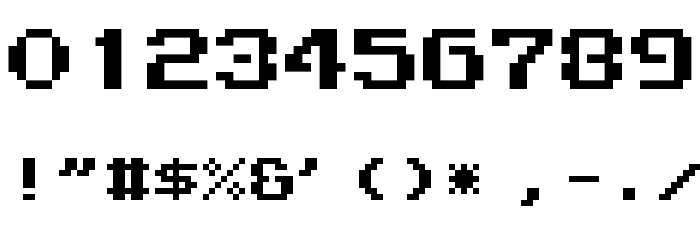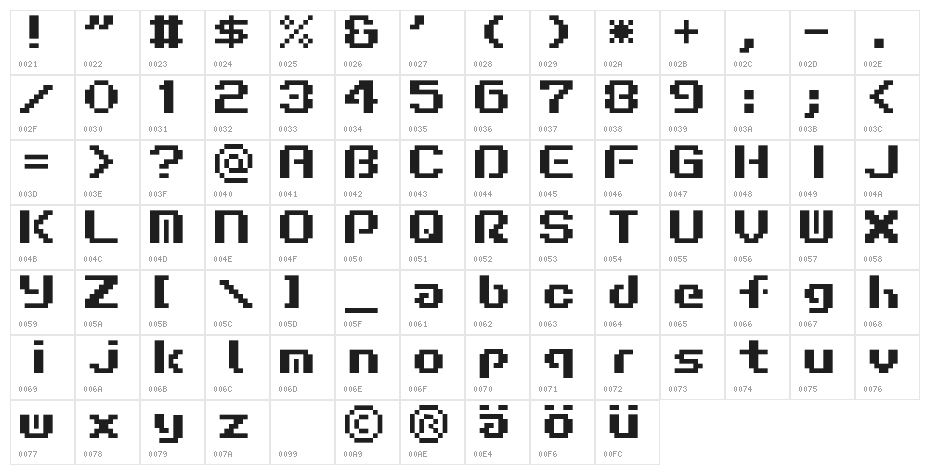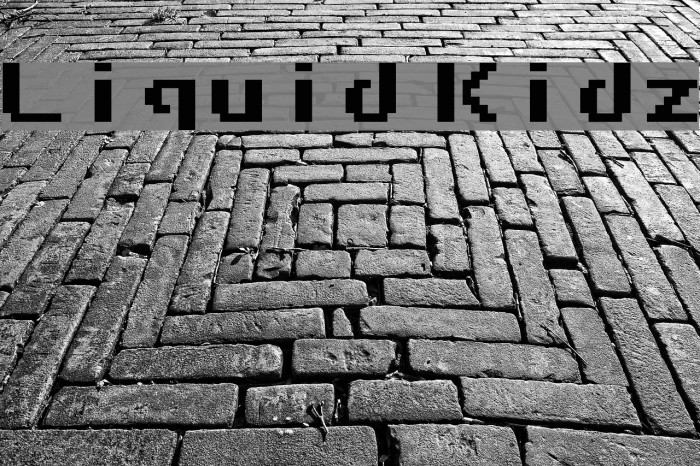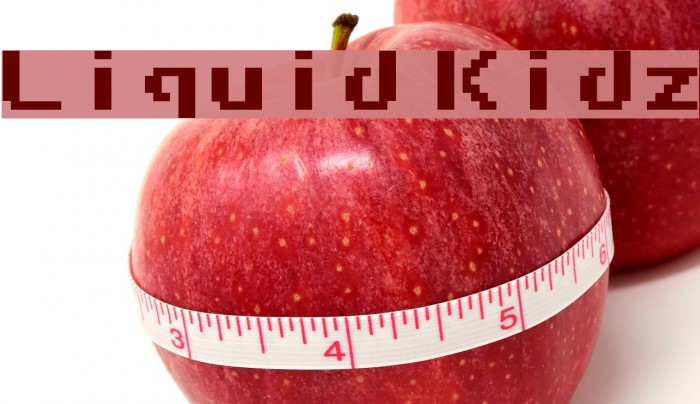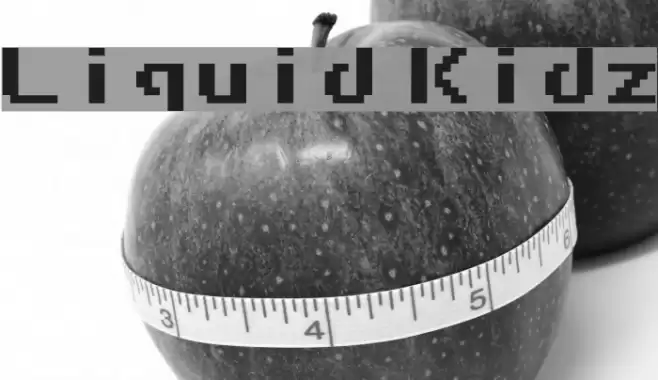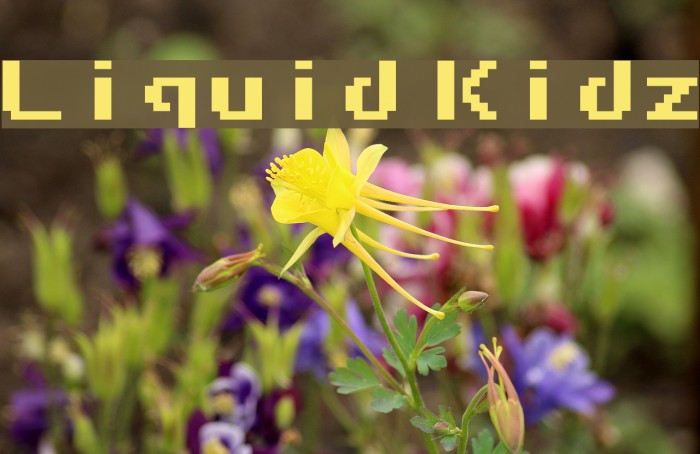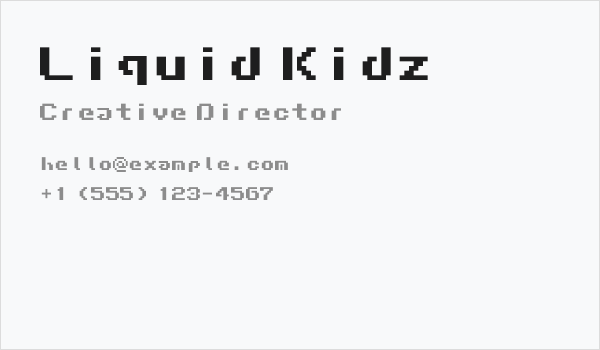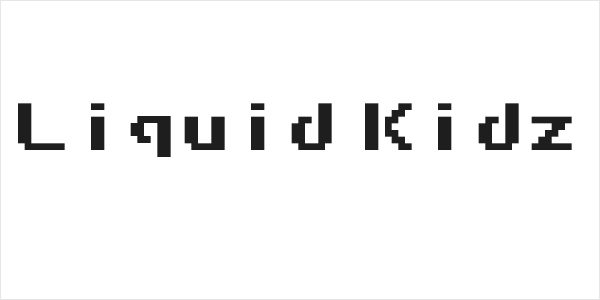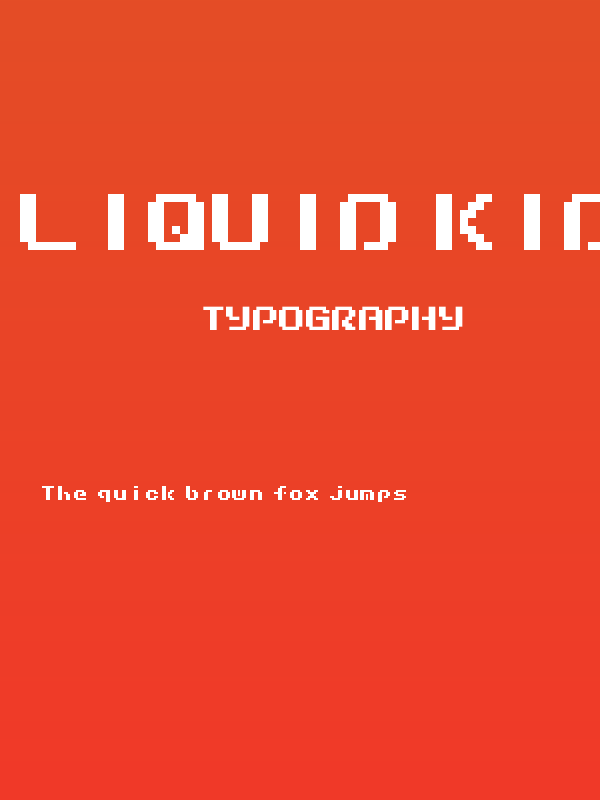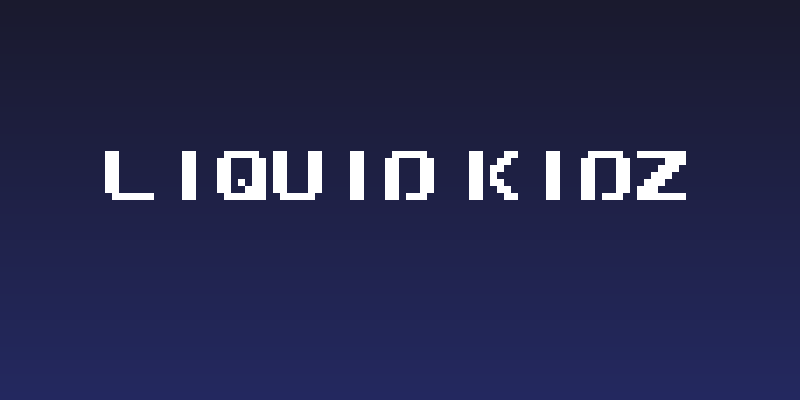
Liquid Kidz Font
Liquid Kidz Description
This font exhibits a bold, pixelated style reminiscent of early digital or video game aesthetics. Each character is constructed with a blocky, grid-like appearance, giving it a retro and playful feel. The uppercase and lowercase letters maintain a consistent height, contributing to a uniform look across the text. The numbers and special characters follow the same pixelated design, ensuring cohesion throughout. The font's distinct style makes it stand out, ideal for projects that aim to capture a nostalgic or tech-inspired theme.
| Proposed Projects | Ideal for video game graphics, retro-themed posters, digital art, and tech-related branding. |